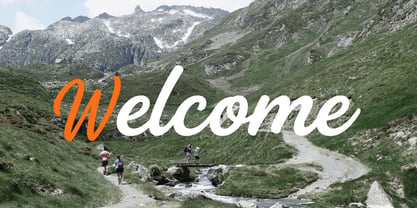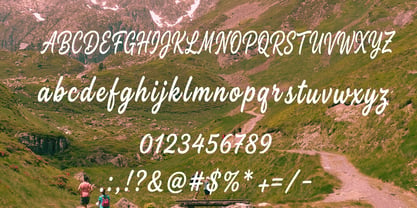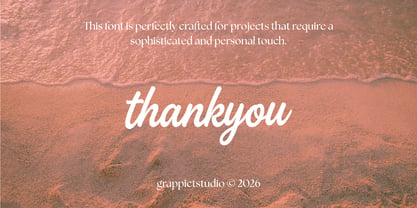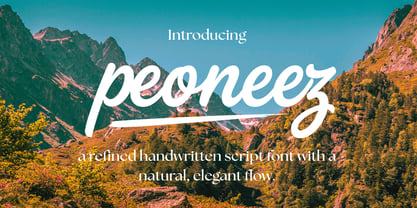
Peoneez Signature
Embrace the breathtaking beauty of nature and adventure with Peoneez, a refined handwritten script font defined by its completely natural, elegant flow.
Striking a magnificent balance between energetic brush typography and upscale lifestyle aesthetics, this regular display script features a smooth forward slant, thick marker strokes, and fluid letter connections. Its true stylistic signature lies in the soaring, elongated ascenders paired with a dramatic, custom underline swash that cuts sharply beneath the text like a fresh brush trail.
Featuring clean, optimized outlines and heavy visual weights, Peoneez cuts through complex background imagery with effortless clarity. Layered over stunning mountain vistas, travel photography, or organic textures, it infuses layouts with an immediate sense of wonder, wanderlust, and human craftsmanship.
It stands out as an extraordinary design asset for outdoor adventure lifestyle brands, travel vlog thumbnails, extreme sports merchandise slogans, boutique organic product packaging, and high-impact social media quote graphics.